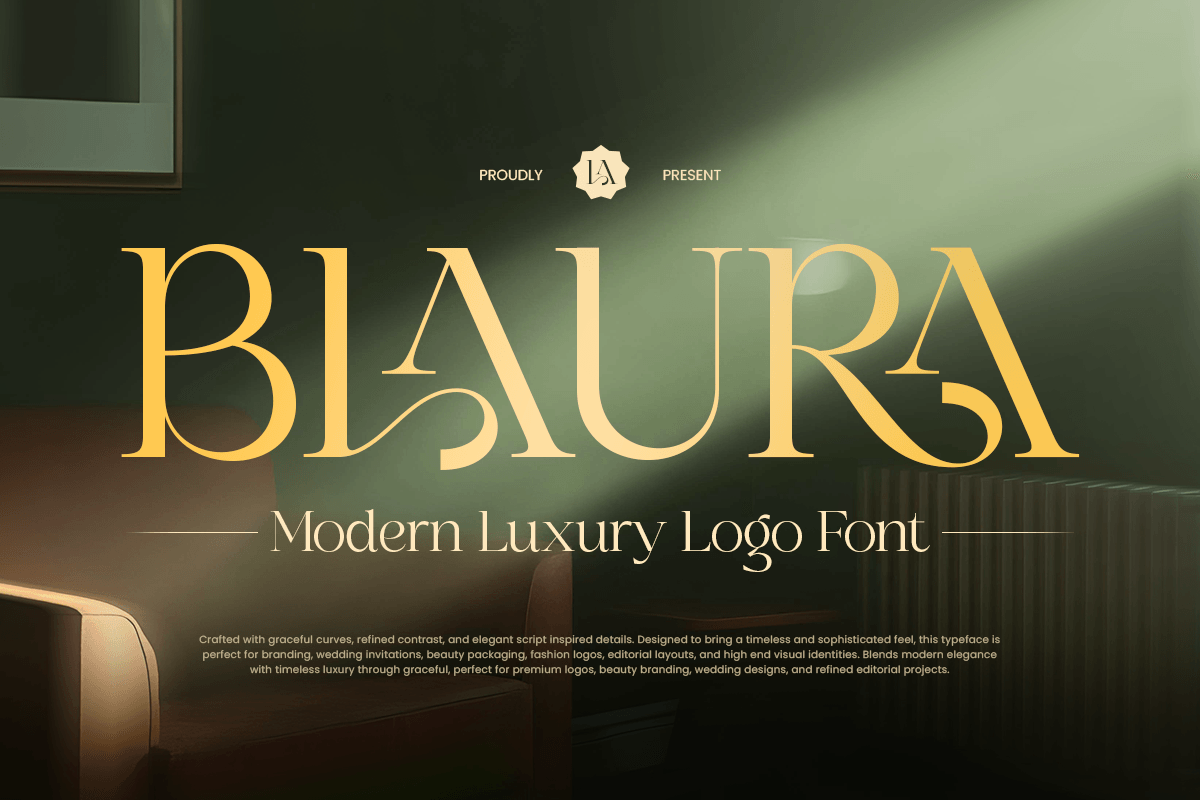
Blaura
-Modern Luxury Logo Font
Blaura - Modern Luxury Logo Font
BLAURA is a modern luxury logo font designed to create elegant and memorable brand identities. With refined letterforms, balanced proportions, and a sophisticated contemporary style, this typeface is perfect for luxury logos, fashion branding, premium packaging, editorial titles, and high-end visual projects.
Crafted for designers who value simplicity with a touch of exclusivity, BLAURA combines modern elegance with timeless luxury aesthetics. Its graceful character shapes provide a polished appearance that helps brands communicate confidence, beauty, and sophistication.
Whether used for boutique identities, beauty products, wedding stationery, lifestyle brands, or premium marketing materials, BLAURA delivers a refined typographic presence across both print and digital applications.
BLAURA – Modern Luxury Logo Font Features
• Elegant modern design with premium luxury character
• Perfect for logos, branding, packaging, and editorial layouts
• Refined letterforms with sophisticated visual balance
• Ideal for fashion, beauty, wedding, lifestyle, and boutique brands
• OpenType features for enhanced typographic styling
Create a timeless luxury identity with BLAURA – the perfect modern logo font for elegant branding, premium packaging, and sophisticated design. ✨